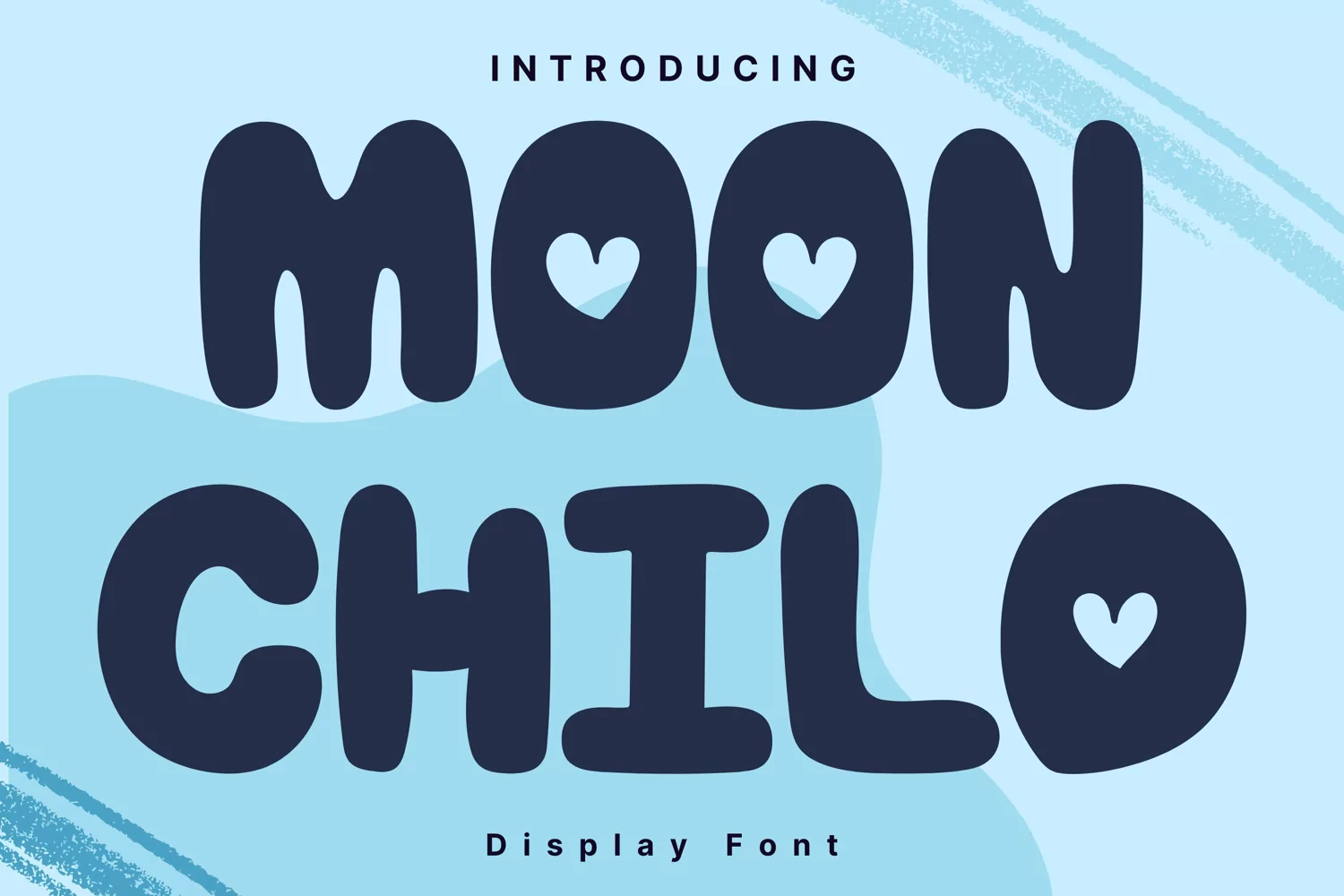
Moon Child
MoonChild
Moon Child Style is a whimsical and clean handwritten font. It can easily be matched to an incredibly large set of projects, so add it to your creative ideas and notice how it makes them stand out!
Moon Child